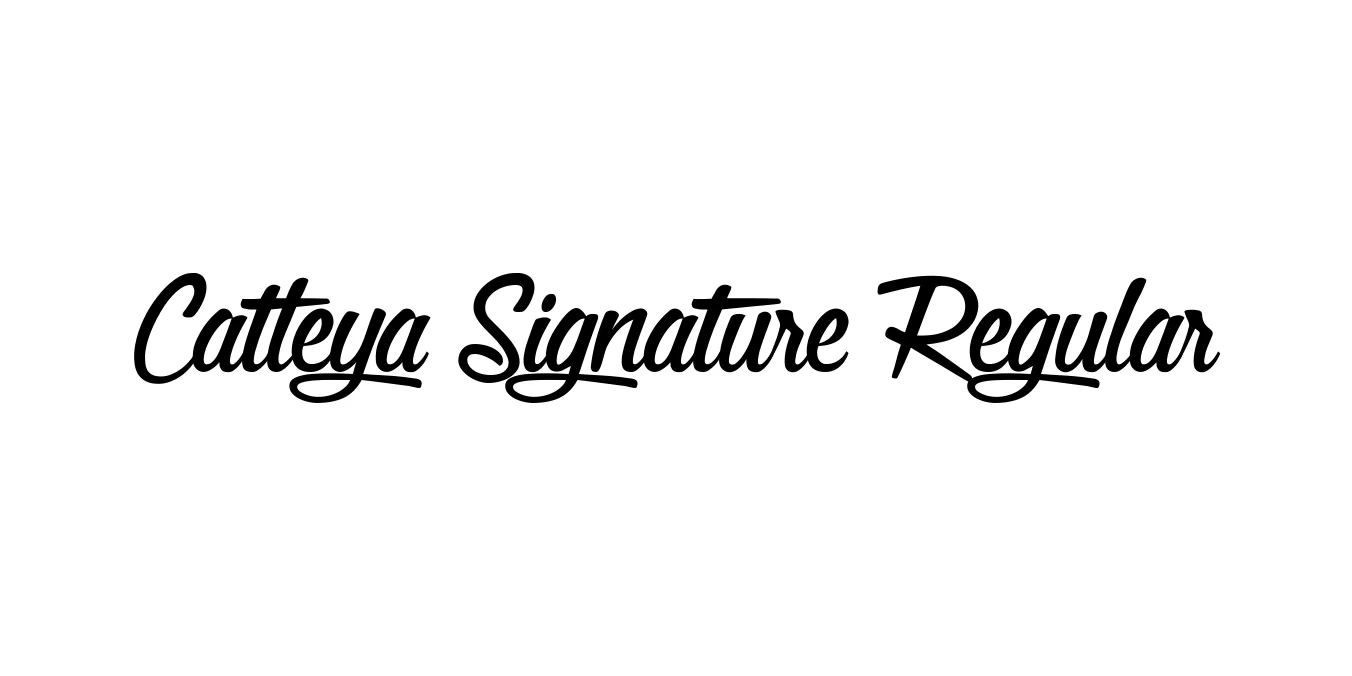
Catleya Signature Regular
Designed by Ardyana Types
Catleya Signature Regular is an elegant and sophisticated monoline script font designed to mimic the natural flow of human handwriting. Developed with a focus on fluid strokes and authentic character connections, it provides a high-end, bespoke aesthetic that is perfect for professional branding projects requiring a personal, intimate touch.
This typeface includes a comprehensive set of characters, such as uppercase, lowercase, numerals, and various punctuation marks. Its versatility and graceful appearance make it a top choice for luxury logos, wedding invitations, and digital watermarking, where a sense of exclusivity and craftsmanship is paramount for the brand identity.
Catleya Signature Regular Best Uses
Creates unique and sophisticated handwritten-style logos.
Excellent for elegant Instagram quotes and stylish graphic overlays.
Adds a personalized, high-end feel to wedding and formal event stationery.
Ideal for subtle and professional watermarking on high-quality digital images.